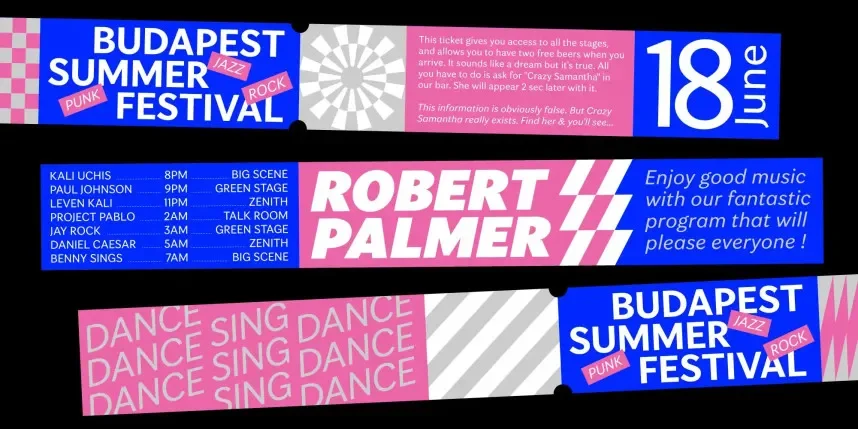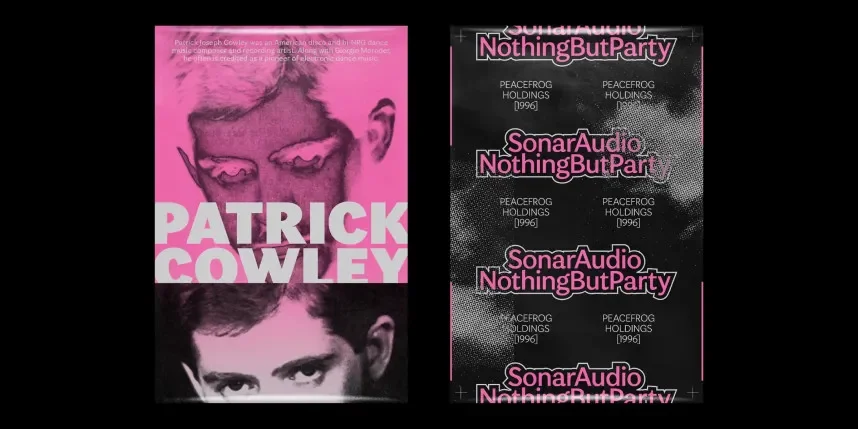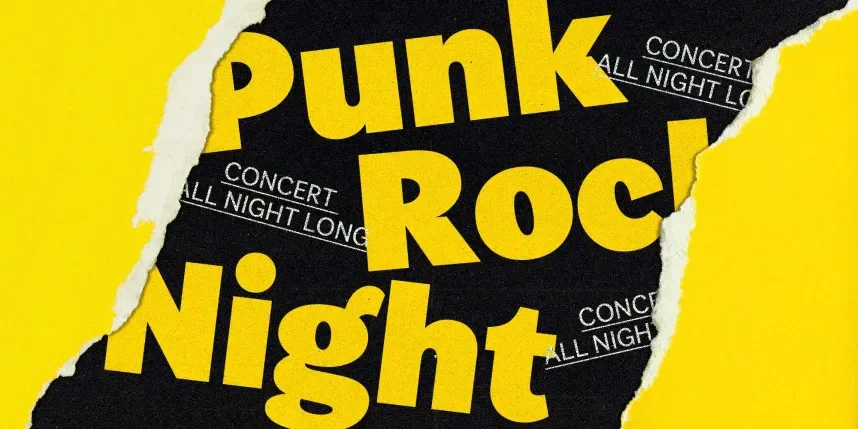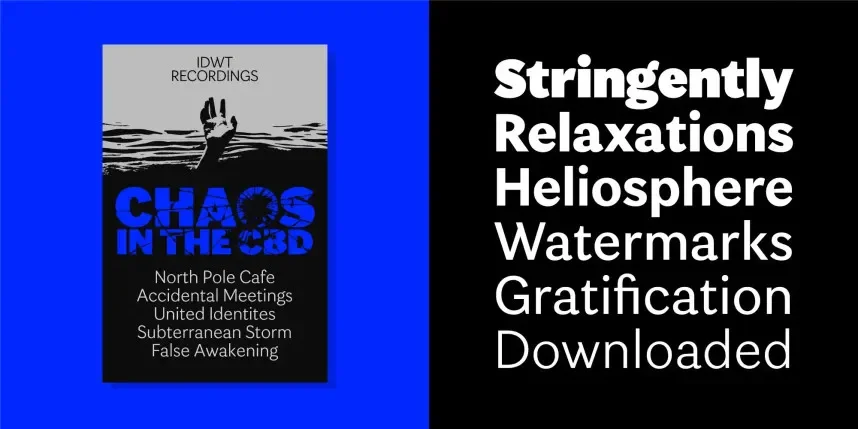
Vesterbro Sans Font Family is a modern sans-serif family designed for both clarity and versatility. The clean letterforms and balanced proportions make it suitable for a wide range of uses, from corporate branding to website design. Its neutral and professional style ensures it works across various media.
This font family is ideal for business branding, website copy, and app design. With multiple weights, it offers flexibility for headings and body text. Available in TTF and OTF formats, Vesterbro Sans Font Family comes with a commercial-use license. Always confirm the license details before use.